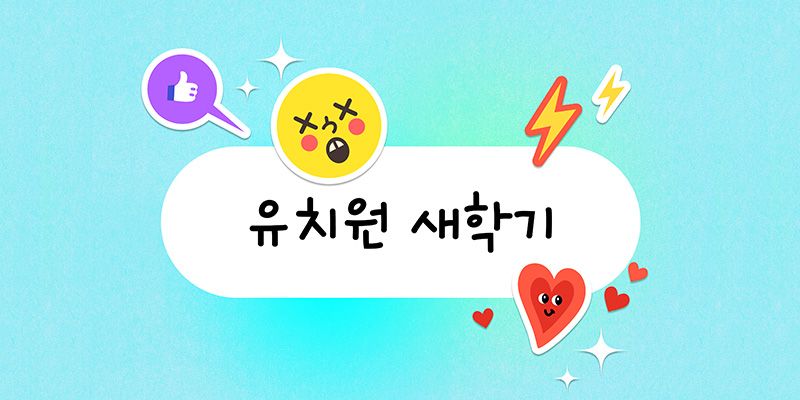
Rix Dictation Font Free Download is a beautifully crafted handwriting-style typeface that mimics the natural flow of cursive writing. With its smooth strokes and casual elegance, this font is ideal for personal branding, stationery, lifestyle blogs, digital journaling, and any design that benefits from a handwritten, authentic touch.
Its legibility and charm make it versatile across both print and digital media. Whether you’re working in Adobe Illustrator, Canva, or Procreate, Rix Dictation integrates seamlessly into your design process, offering a handwritten feel without sacrificing clarity.